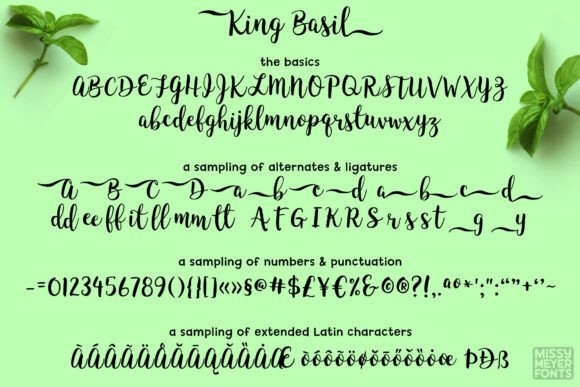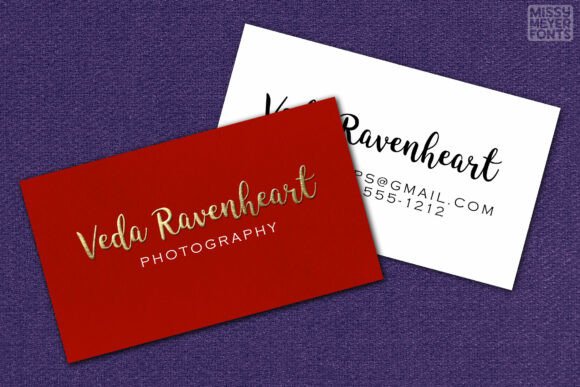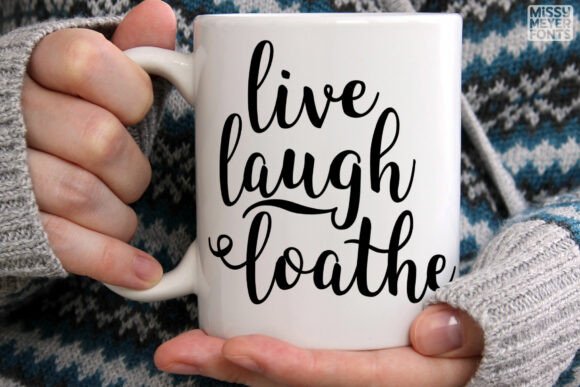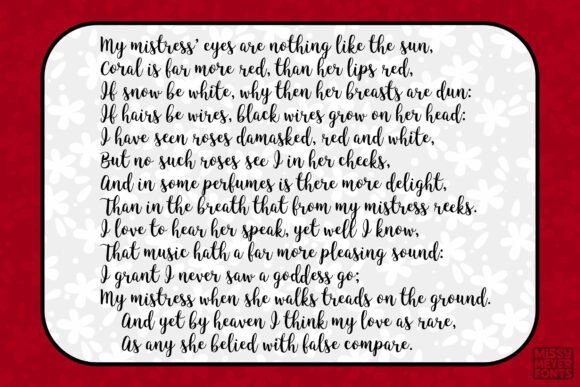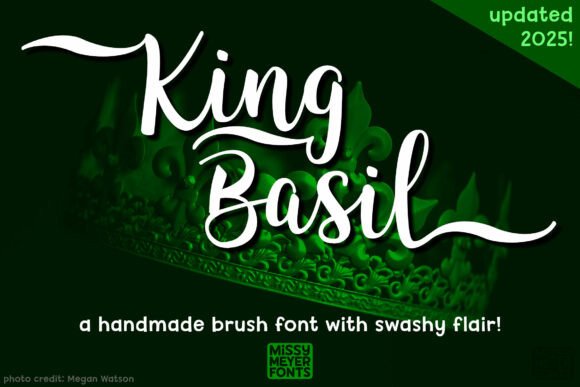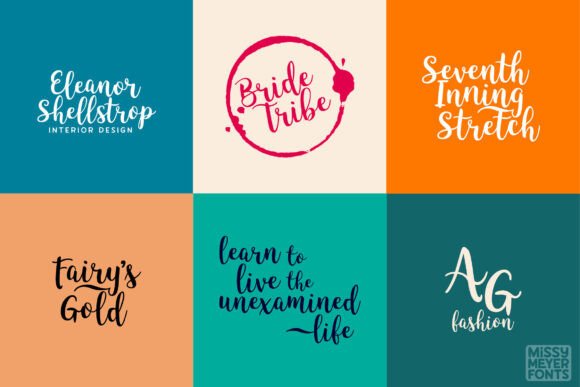
King Basil Font
Say hello to King Basil: 421 glyphs, including A-Z, a-z, 0-9, tons of punctuation, 24 ligature sets, 163 accented characters, entry swash alternates for all uppercase and lowercase letters, exit swash alternates for all lowercase characters … this sucker has a ton of features!
All characters were hand-drawn on paper (with a Tombow brush pen), then scanned and imported, then the vectors were cleaned up and smoothed.
King Basil includes:
– Uppercase characters A-Z
– Lowercase characters a-z
– Numbers 0-9; Full punctuation
– Stylistic alternates for specific letters (such as uppercase F and T)
– Entry swash alternates for uppercase A-Z and lowercase a-z
– Exit swash alternates for lowercase a-z
– 15 double-letter ligatures
– 163 accented characters